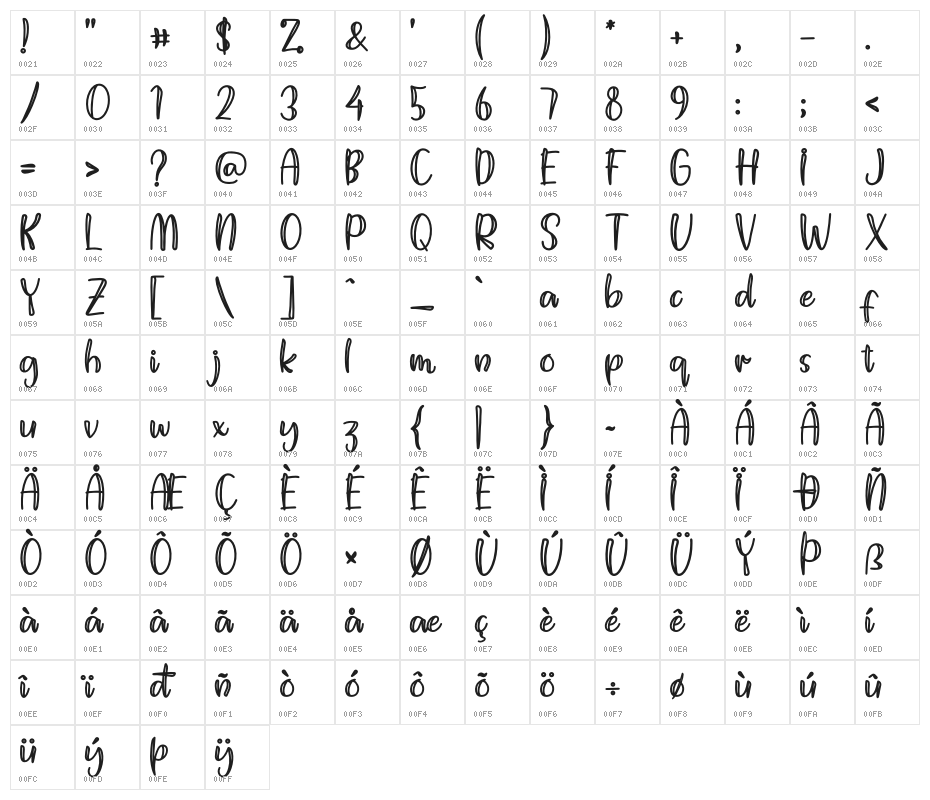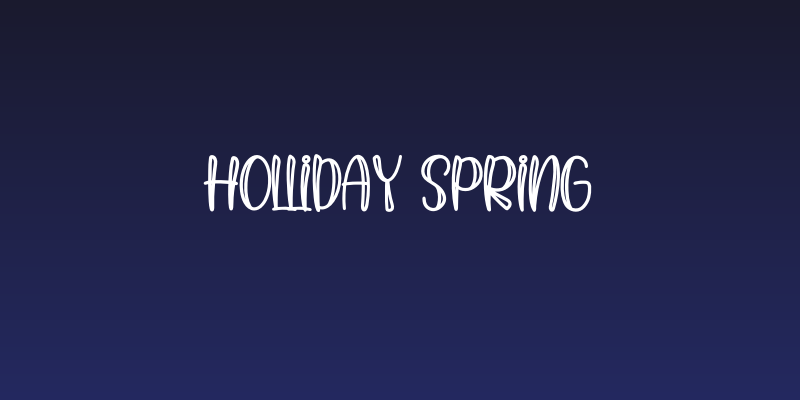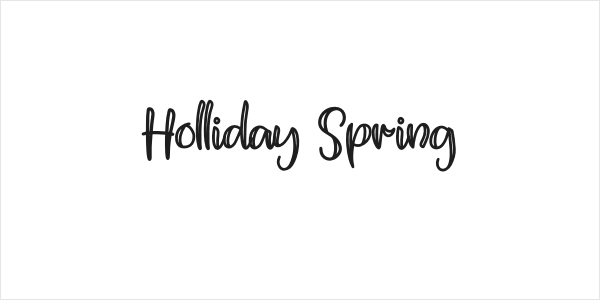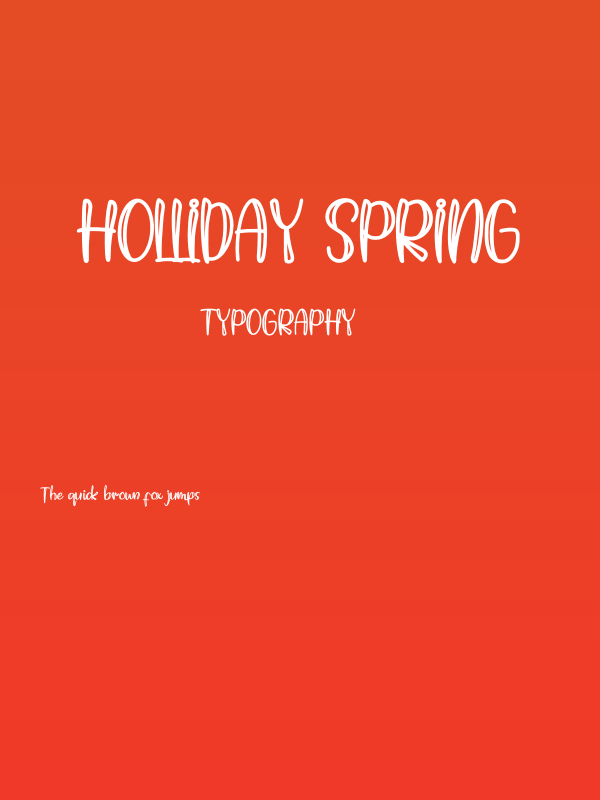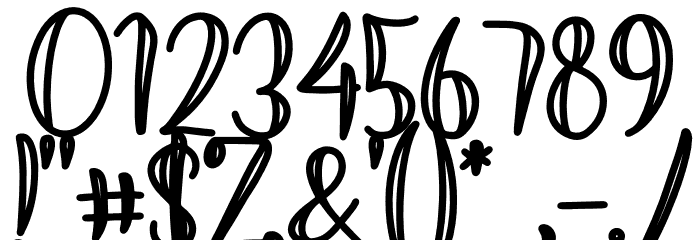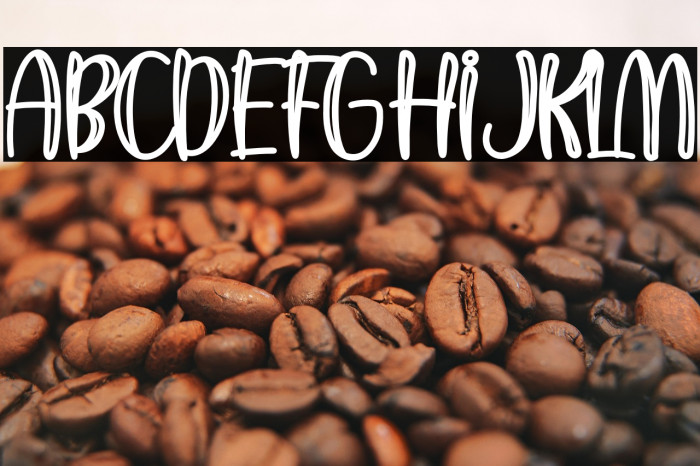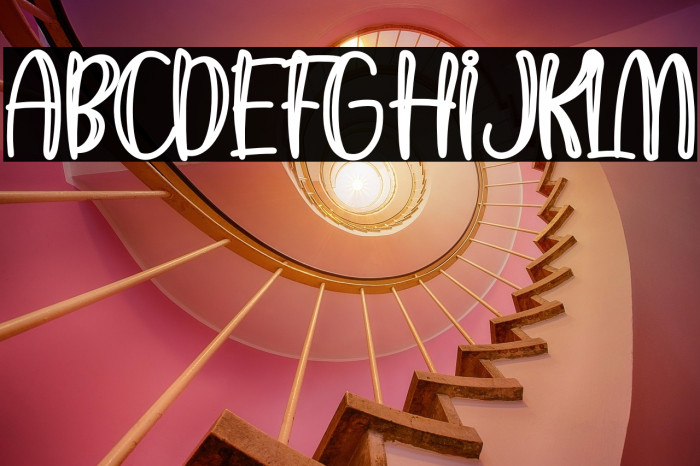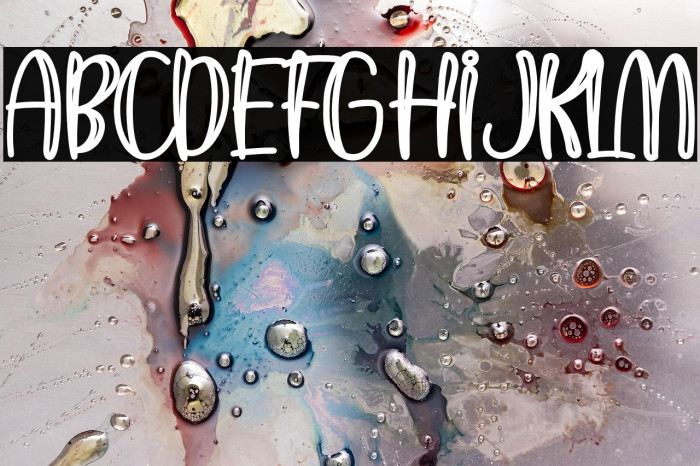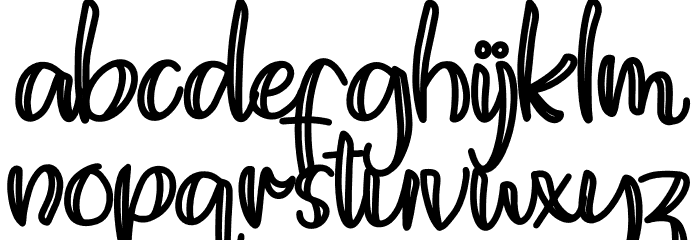
Holliday Spring Font
Holliday Spring Description
This font features a playful and energetic handwritten style, characterized by its flowing, cursive-like letters. The uppercase letters are bold and slightly slanted, giving a sense of movement and dynamism. The lowercase letters maintain a consistent style with loops and curves that add to the font's whimsical nature. Numbers and special characters are designed to match the overall aesthetic, ensuring a cohesive look across all text. The strokes are thick, providing a strong visual impact, while the spacing between characters is relatively tight, enhancing the font's compact and lively appearance.